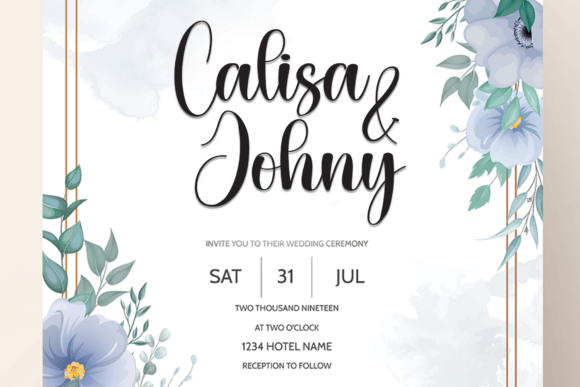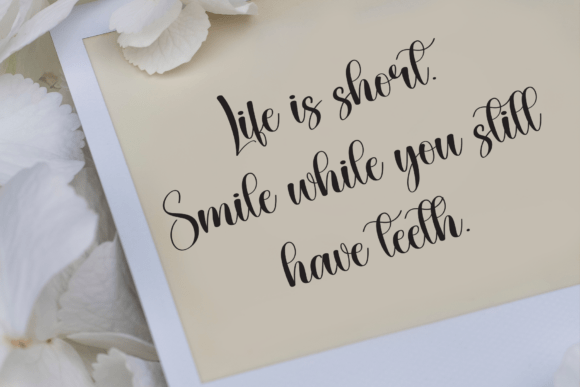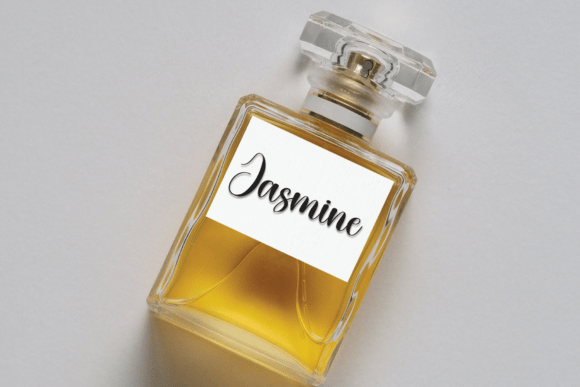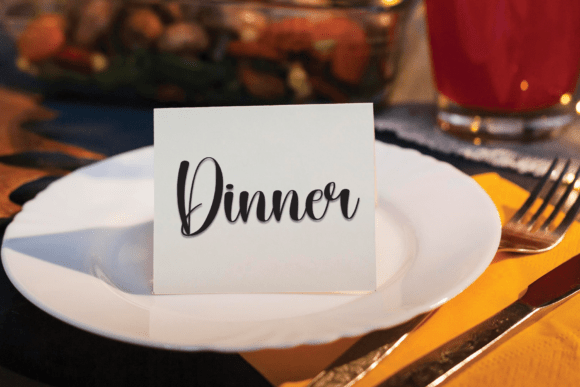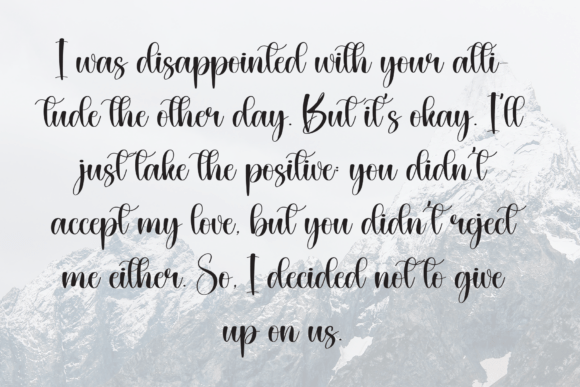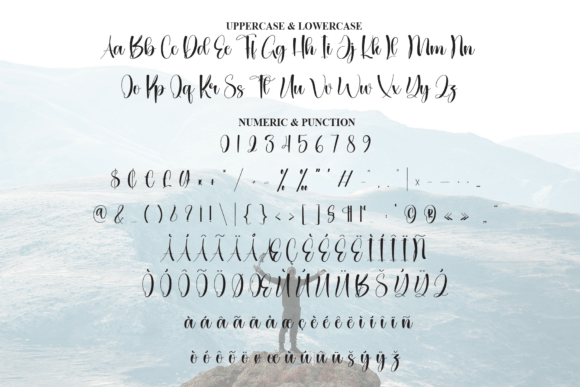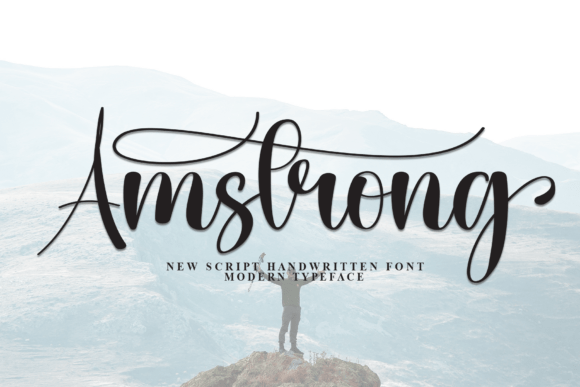
Introducing Amstrong Font: Elevate Your Designs with Elegance and Playfulness
Are you looking for a font that can add a touch of sophistication and whimsy to your designs? Look no further than Amstrong Font, a stylish handwritten script font that captures the essence of elegance and playfulness in every stroke. With its flowing curves and natural rhythm, Amstrong Font is perfect for designers and crafters who want to add a personal, charming touch to their projects.
The Characteristics of Amstrong Font
Amstrong Font is a beautifully crafted handwritten script font that boasts a range of characteristics that make it stand out from the crowd. Its flowing curves and natural rhythm give it a sense of movement and fluidity, making it perfect for creating elegant and sophisticated designs. The font’s strokes are carefully crafted to convey a sense of playfulness and whimsy, adding a touch of personality to any project.
Uses of Amstrong Font
Amstrong Font is a versatile font that can be used in a variety of design applications. Here are some of the most popular uses of this stunning font:
- Invitations: Add a touch of elegance and sophistication to your invitations with Amstrong Font. Whether you’re planning a wedding, birthday party, or baby shower, this font is sure to impress.
- Branding: Use Amstrong Font to create a unique and memorable brand identity. Its playful and whimsical nature makes it perfect for brands that want to stand out from the crowd.
- Social Media: Add a personal touch to your social media posts with Amstrong Font. Whether you’re creating graphics for Instagram, Facebook, or Twitter, this font is sure to make your content stand out.
Benefits of Using Amstrong Font
So why choose Amstrong Font for your design projects? Here are just a few benefits of using this stunning font:
- Warmth: Amstrong Font adds a warm and inviting touch to any design, making it perfect for creating cozy and intimate designs.
- Sophistication: Despite its playful nature, Amstrong Font also conveys a sense of sophistication and elegance, making it perfect for high-end designs.
- Creativity: Amstrong Font is a versatile font that can be used in a variety of creative ways, making it perfect for designers who want to push the boundaries of their designs.
Tips for Using Amstrong Font
Here are a few tips for getting the most out of Amstrong Font:
- Use it sparingly: Amstrong Font is a bold and expressive font, so use it sparingly to avoid overwhelming your design.
- Pair it with other fonts: Amstrong Font pairs well with a range of other fonts, so don’t be afraid to experiment with different combinations.
- Experiment with colors: Amstrong Font looks great in a range of colors, so don’t be afraid to experiment with different hues and shades.
In conclusion, Amstrong Font is a stylish handwritten script font that captures the essence of elegance and playfulness in every stroke. With its flowing curves and natural rhythm, it’s perfect for designers and crafters who want to add a personal, charming touch to their projects. Whether you’re creating invitations, branding, or social media graphics, Amstrong Font is sure to elevate your designs to the next level.